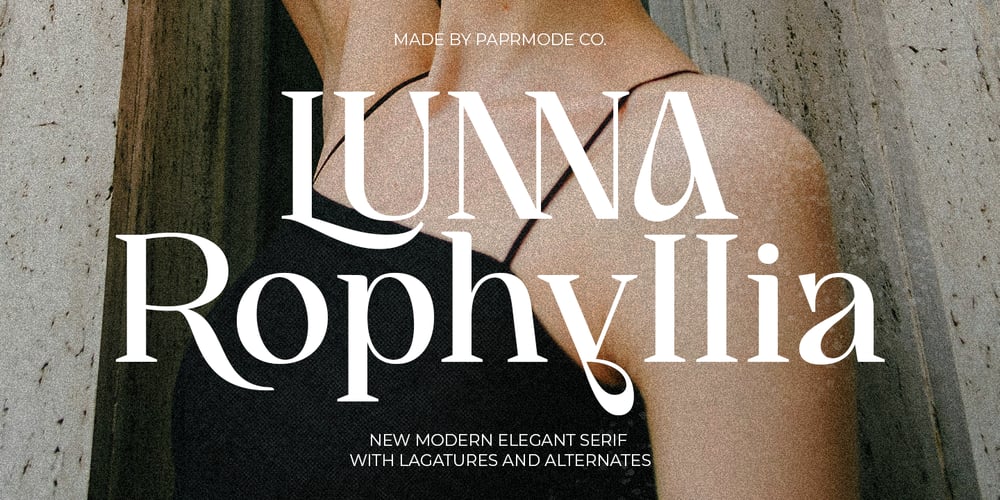
Lunna Rophyllia Font Family was designed by Mira Kartika Sari and published by Papermode Co. Lunna Rophyllia contains 1 styles and family package options. Lunna Rophyllia, and let her fun and elegant excitement make you happy and enhance your creativity! You can use this font very easily.New modern Elegant Serif With Lagatures, Alternates And Multilingual Support